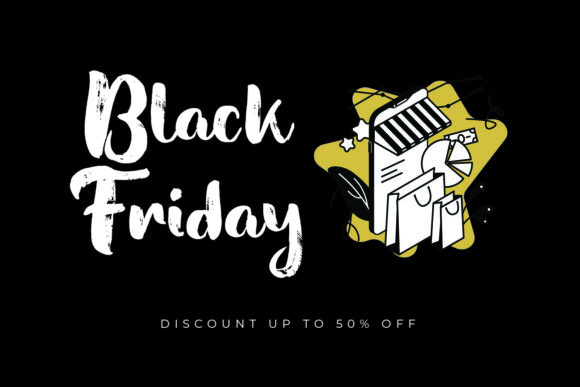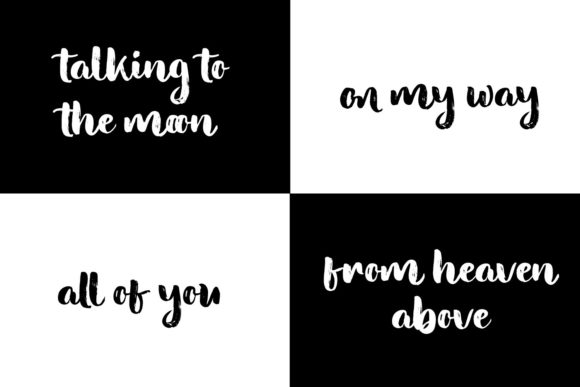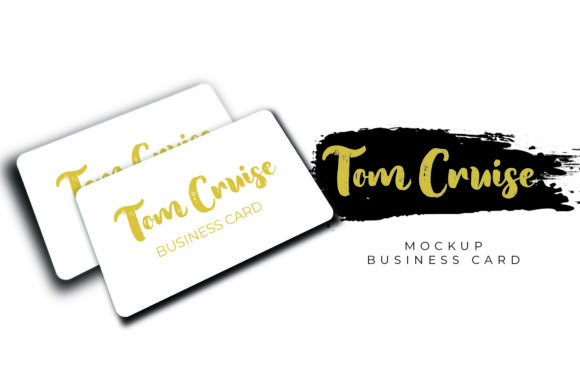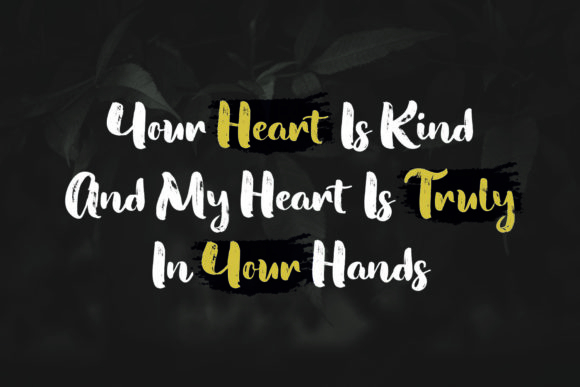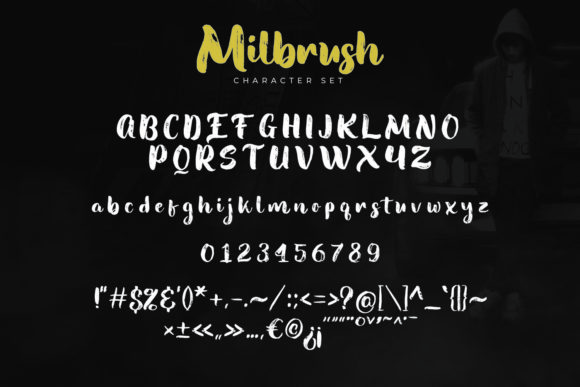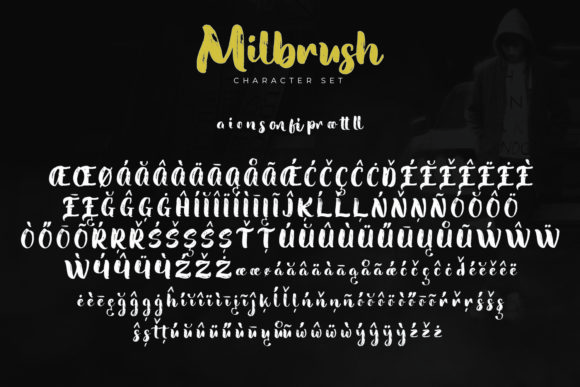
Introduction to Milbrush Font
You’ve spent hours pouring your heart and soul into a creative project, and it’s finally coming together. The perfect image, the perfect color scheme, the perfect typography. But then, you realize that the font just isn’t quite right. It’s in this moment that many designers turn to the Milbrush Font, a sweet and delicate, brushed script font that can elevate any design to new heights.
Whether you’re creating a beautiful invitation for a special occasion, or designing a branding material for your business, the Milbrush Font is a valuable resource that can help you achieve your creative vision. With its high quality design and transparent background, this font is perfect for designers who want to add a touch of elegance and sophistication to their work.
Key Features of Milbrush Font
- High-quality, professional font suitable for creative projects, including graphic design, digital art, and publishing.
- Unique, hand-drawn design with a transparent background, allowing for seamless integration into any design project.
- Perfect for use in logos, branding materials, and other visual identity elements, thanks to its versatility and high-quality design.
- Resolution-independent, ensuring that the font looks crisp and clear at any size or resolution, from small text to large display headings.
Honest Review: Milbrush Font
- ✨ The high quality of the font is evident in its crisp lines and smooth curves.
- ✨ The font is incredibly versatile and can be used in a wide range of design applications, from logos to brochures.
- ✨ The transparent background option is a huge plus, allowing for seamless integration with other design elements.
- ⚠️ The font only comes in a limited number of weights, which may not be ideal for complex design projects.
- ⚠️ Some users may find the font a bit too playful, which may not be suitable for more formal or professional designs.
Milbrush Font
Tips for Getting the Most Out of Milbrush Font
To get the most out of the Milbrush Font, use it in combination with other design elements to create a visually appealing design. Experiment with different font sizes, colors, and arrangements to find the perfect look for your project.
The Milbrush Font is perfect for a variety of creative projects, including: